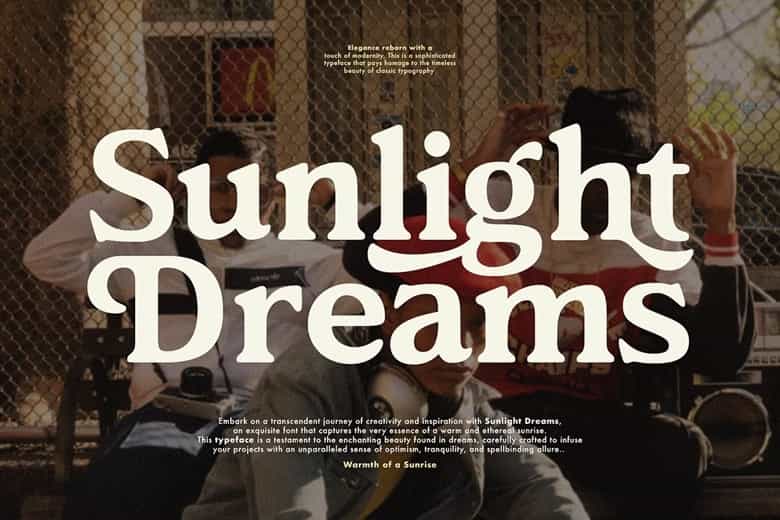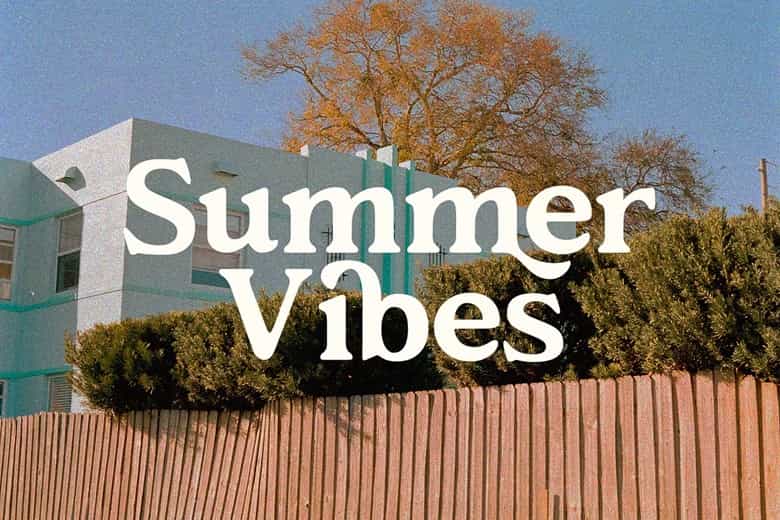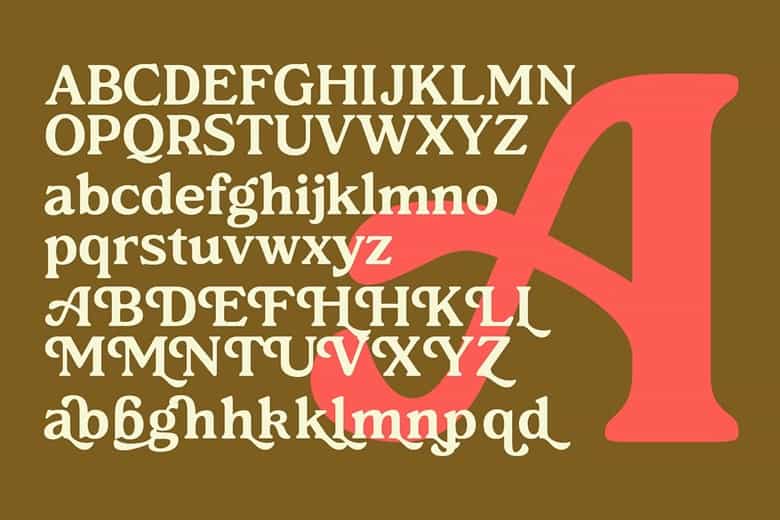
Sunlight Dreams is a vintage style serif font which takes the essence of retro design and gives it a modern touch.. Clean and with a highly refined look, thanks to its serifs and a slightly rounded shape, it conveys coziness and elegance. This typeface comes in handy for different design purposes, and it can give a project that elegant vintage appeal necessary for branding, packaging or any other creative design work. To give your designs a retro touch of sophistication, welcome the world of ‘Sunlight Dreams’.